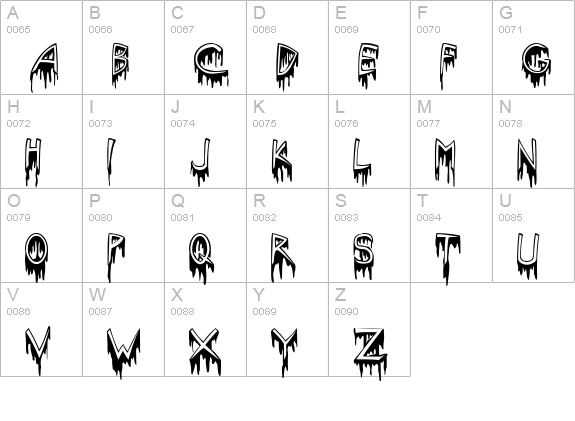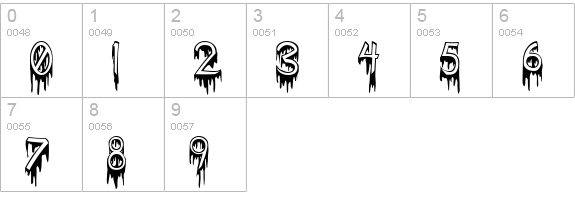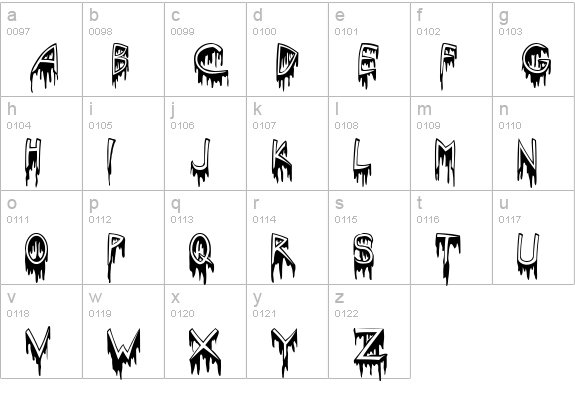
Introducing SolsticeOfSuffering, a captivating and visually striking font that perfectly embodies the essence of darkness and despair. This font is a powerful representation of the depths of human emotions, evoking a sense of melancholy and intensity in every stroke. SolsticeOfSuffering is a unique and meticulously crafted typeface that seamlessly blends gothic elements with a touch of modernity. Its bold and dramatic letterforms captivate the eye, commanding attention and leaving a lasting impression. Each character exudes an air of mystery, as if they hold secrets waiting to be unveiled. This font is not only visually captivating, but also incredibly versatile. Whether you're designing a logo for a rock band, creating striking headlines, or adding a touch of sophistication to your print materials, SolsticeOfSuffering will effortlessly elevate your projects to new heights. But what makes SolsticeOfSuffering even more remarkable is the fact that it is freely available to download at FontsMarket.com. Yes, you heard it right – this exquisite font can be yours without any cost. FontsMarket.com offers a wide range of high-quality fonts, and SolsticeOfSuffering is no exception. With just a few clicks, you can have this captivating font at your fingertips, ready to enhance your designs and make a lasting impact. So, whether you're a seasoned graphic designer looking for a new font to add to your collection or a creative enthusiast exploring the world of typography, SolsticeOfSuffering is the perfect choice. Unleash your creativity, embrace the darkness, and download this remarkable font today, exclusively at FontsMarket.com.